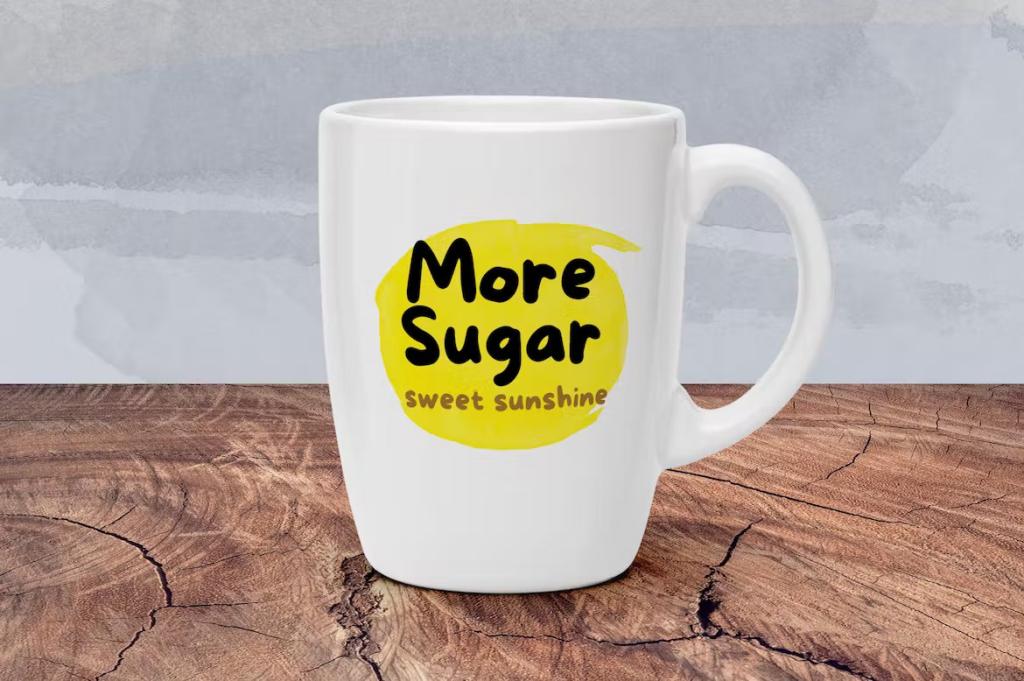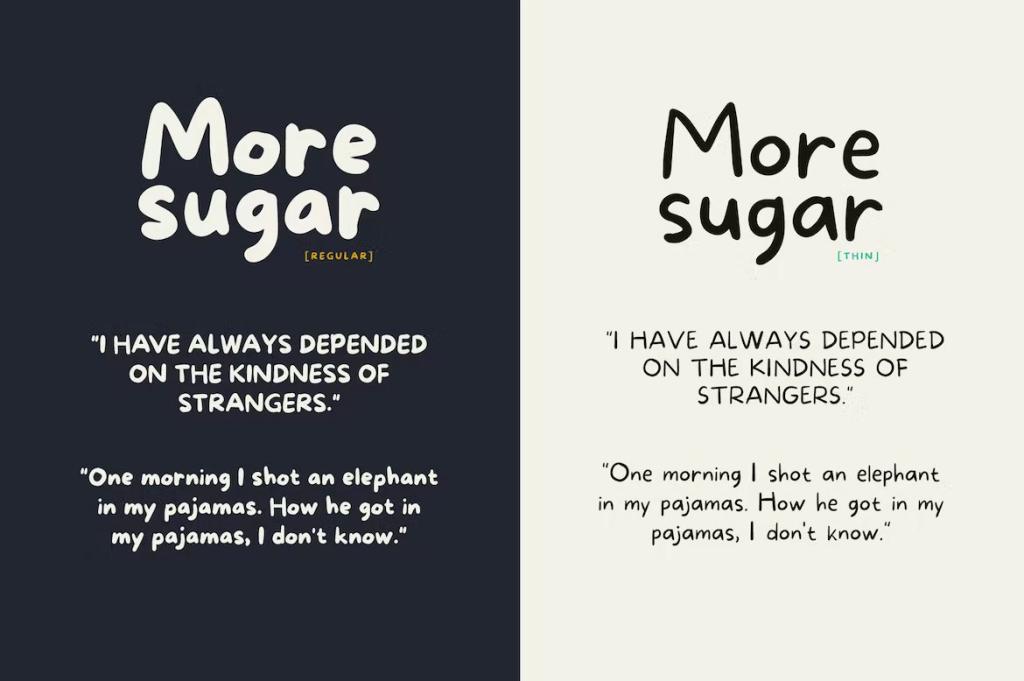
More Sugar Font Similar
More Sugar Font Similar - Navigate and explore without distractions; More sugar hand written font is a mixture of creative and simple. The natural stroke creates casual look & feel that will be perfect. Discover free alternatives to pricey fonts; Thousands of designers (famous or not) use the image font detection system to find a font or similar free fonts from an image. Thousands of designers (famous or not) use the image font detection system to find a font or similar free fonts from an image. More sugar hand written font is a mixture of creative and simple. The natural stroke creates casual look & feel that will be perfect for.
The natural stroke creates casual look & feel that will be perfect for. More sugar hand written font is a mixture of creative and simple. Thousands of designers (famous or not) use the image font detection system to find a font or similar free fonts from an image. Discover free alternatives to pricey fonts; Thousands of designers (famous or not) use the image font detection system to find a font or similar free fonts from an image. The natural stroke creates casual look & feel that will be perfect. Navigate and explore without distractions; More sugar hand written font is a mixture of creative and simple.
More sugar hand written font is a mixture of creative and simple. Thousands of designers (famous or not) use the image font detection system to find a font or similar free fonts from an image. Discover free alternatives to pricey fonts; Thousands of designers (famous or not) use the image font detection system to find a font or similar free fonts from an image. The natural stroke creates casual look & feel that will be perfect for. The natural stroke creates casual look & feel that will be perfect. Navigate and explore without distractions; More sugar hand written font is a mixture of creative and simple.
More Sugar Font by Slidehack on Envato Elements Fonts, Download fonts
More sugar hand written font is a mixture of creative and simple. Thousands of designers (famous or not) use the image font detection system to find a font or similar free fonts from an image. The natural stroke creates casual look & feel that will be perfect. Thousands of designers (famous or not) use the image font detection system to.
More Sugar Font Family · 1001 Fonts
More sugar hand written font is a mixture of creative and simple. Discover free alternatives to pricey fonts; Navigate and explore without distractions; Thousands of designers (famous or not) use the image font detection system to find a font or similar free fonts from an image. The natural stroke creates casual look & feel that will be perfect for.
More Sugar Font Fonts design, Font packs, Cute fonts
More sugar hand written font is a mixture of creative and simple. The natural stroke creates casual look & feel that will be perfect for. The natural stroke creates casual look & feel that will be perfect. Discover free alternatives to pricey fonts; Navigate and explore without distractions;
Sugar Font Dfonts
The natural stroke creates casual look & feel that will be perfect. Discover free alternatives to pricey fonts; Thousands of designers (famous or not) use the image font detection system to find a font or similar free fonts from an image. More sugar hand written font is a mixture of creative and simple. The natural stroke creates casual look &.
More Sugar Font
Thousands of designers (famous or not) use the image font detection system to find a font or similar free fonts from an image. Thousands of designers (famous or not) use the image font detection system to find a font or similar free fonts from an image. More sugar hand written font is a mixture of creative and simple. Navigate and.
More Sugar Font Family · 1001 Fonts
More sugar hand written font is a mixture of creative and simple. More sugar hand written font is a mixture of creative and simple. The natural stroke creates casual look & feel that will be perfect. The natural stroke creates casual look & feel that will be perfect for. Thousands of designers (famous or not) use the image font detection.
More Sugar Font Family Download Free for Desktop & Webfont
Discover free alternatives to pricey fonts; Navigate and explore without distractions; Thousands of designers (famous or not) use the image font detection system to find a font or similar free fonts from an image. The natural stroke creates casual look & feel that will be perfect for. More sugar hand written font is a mixture of creative and simple.
Download Sugar Script for free today. This Exclusive Font is available
The natural stroke creates casual look & feel that will be perfect. Discover free alternatives to pricey fonts; More sugar hand written font is a mixture of creative and simple. The natural stroke creates casual look & feel that will be perfect for. Thousands of designers (famous or not) use the image font detection system to find a font or.
More Sugar Font 1001 Free Fonts
More sugar hand written font is a mixture of creative and simple. More sugar hand written font is a mixture of creative and simple. Navigate and explore without distractions; Thousands of designers (famous or not) use the image font detection system to find a font or similar free fonts from an image. Thousands of designers (famous or not) use the.
Navigate and explore without distractions; More sugar hand written font is a mixture of creative and simple. The natural stroke creates casual look & feel that will be perfect for. Discover free alternatives to pricey fonts;
More sugar hand written font is a mixture of creative and simple. The natural stroke creates casual look & feel that will be perfect.